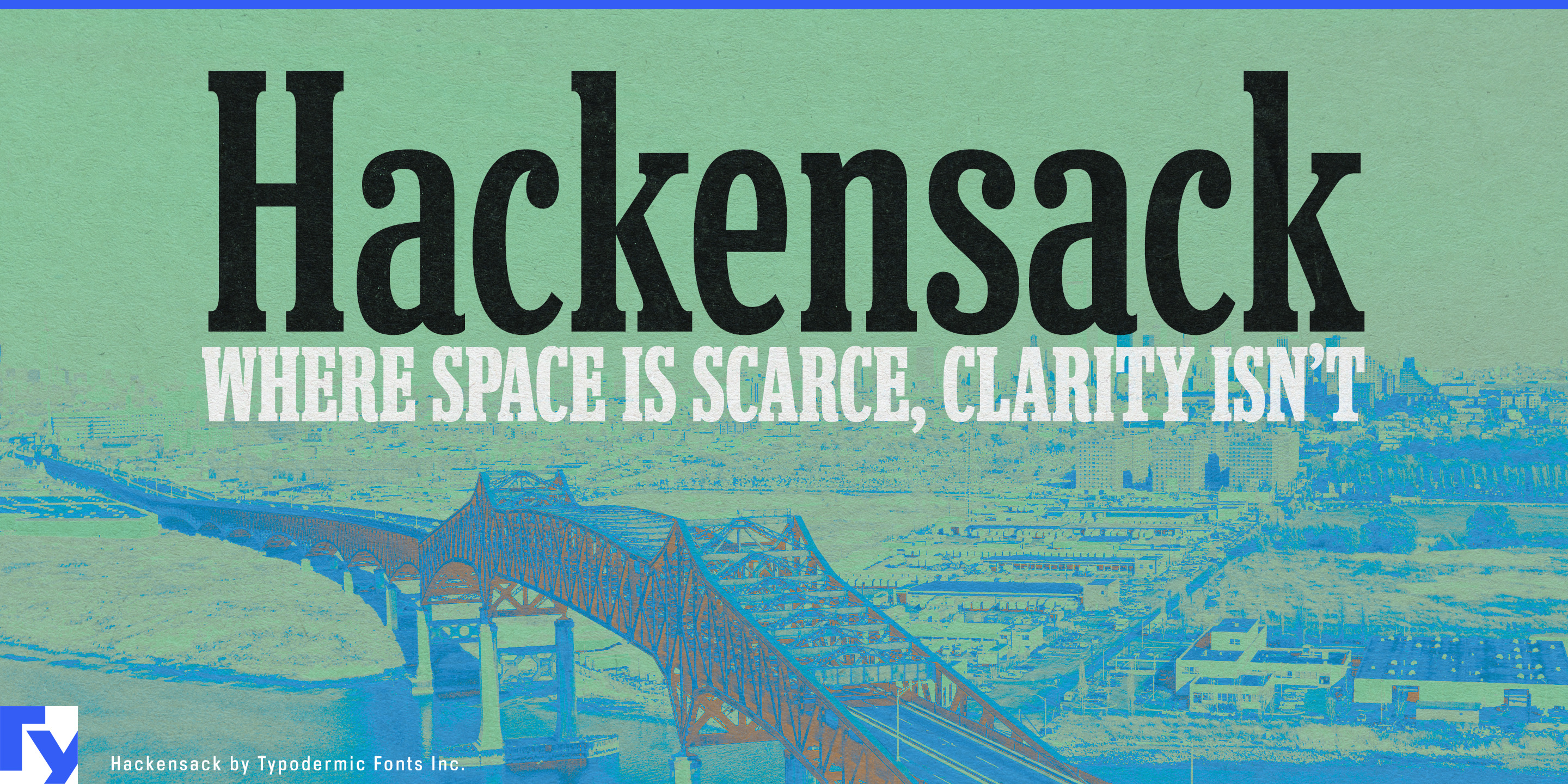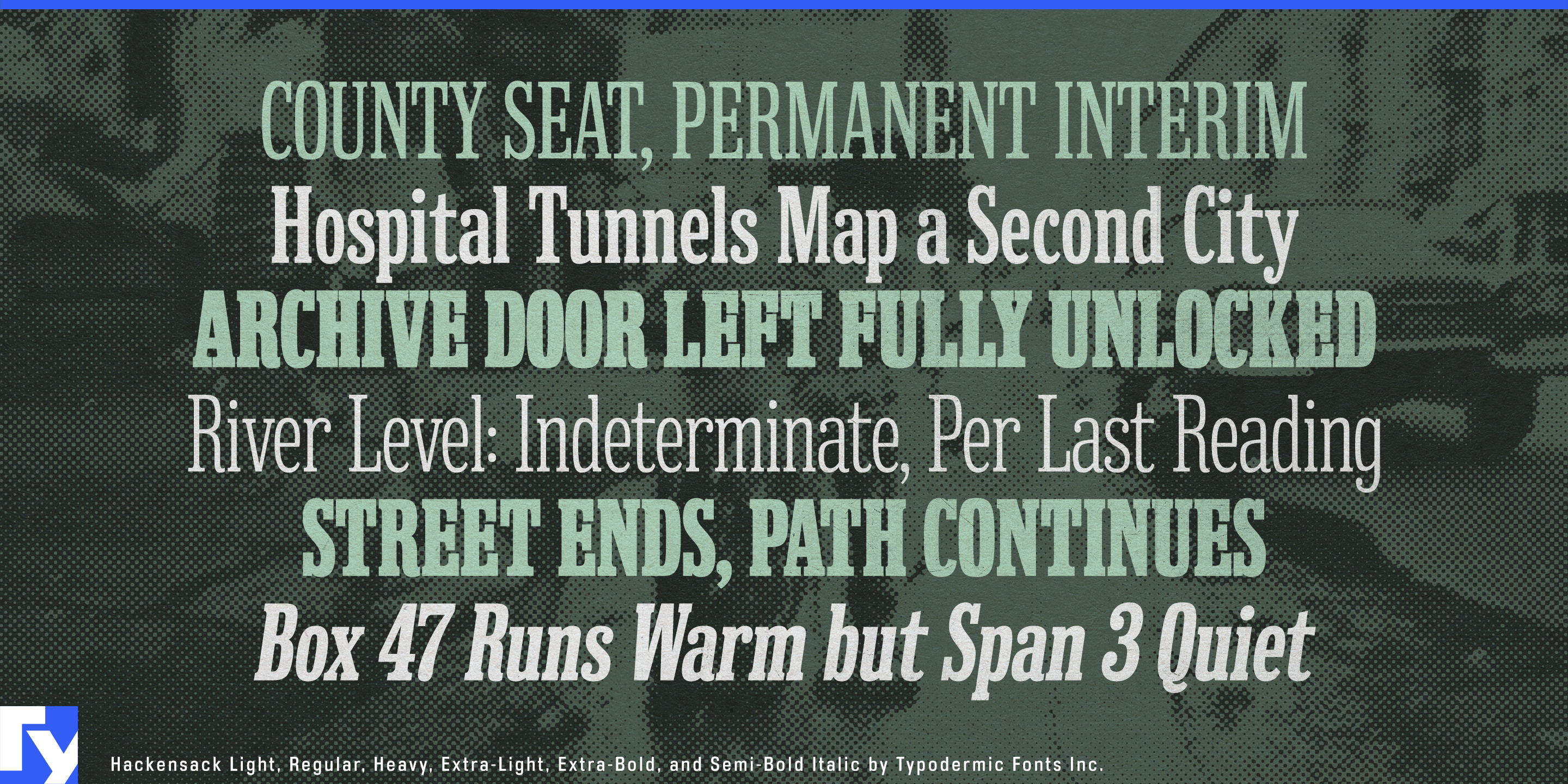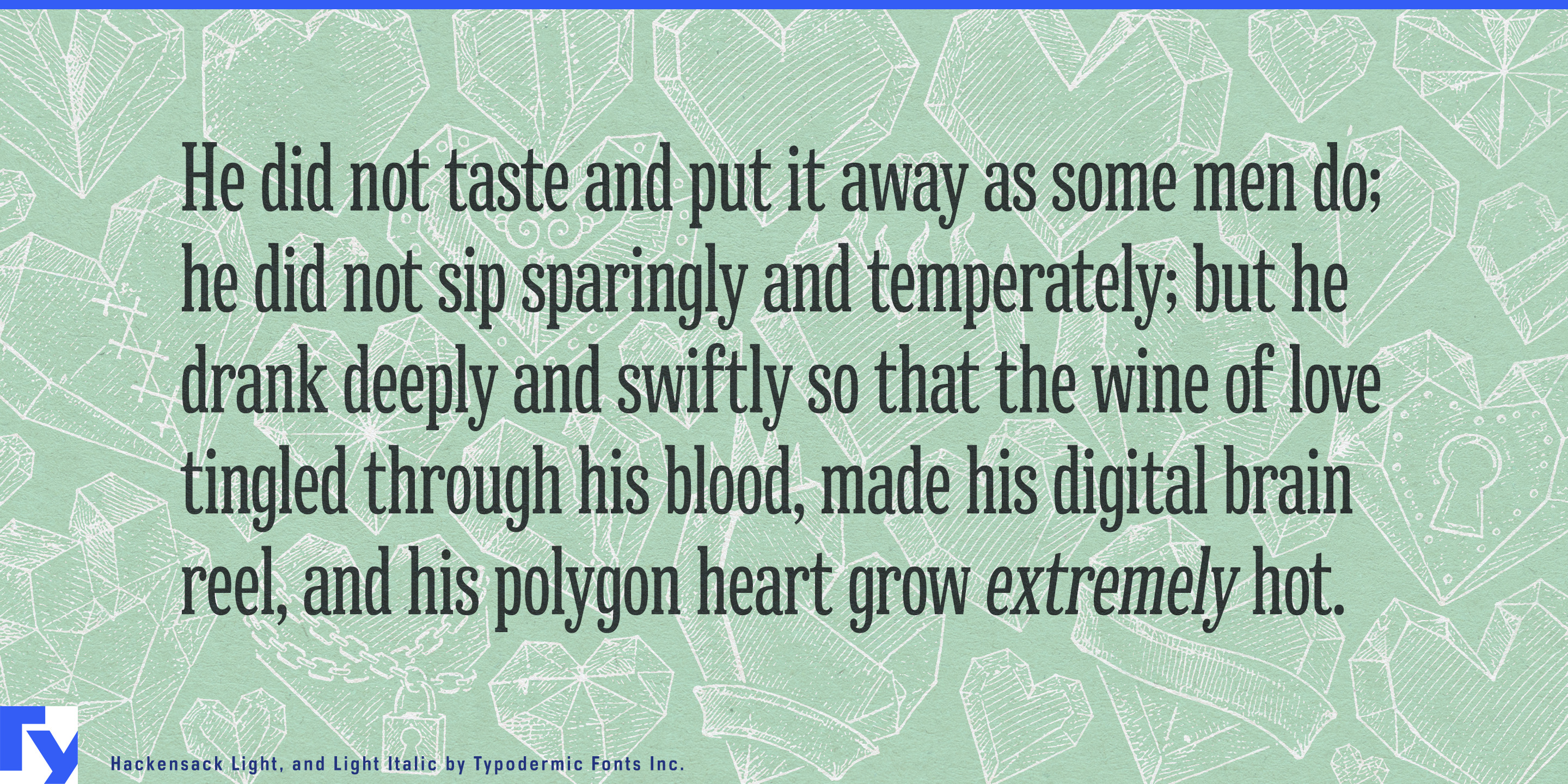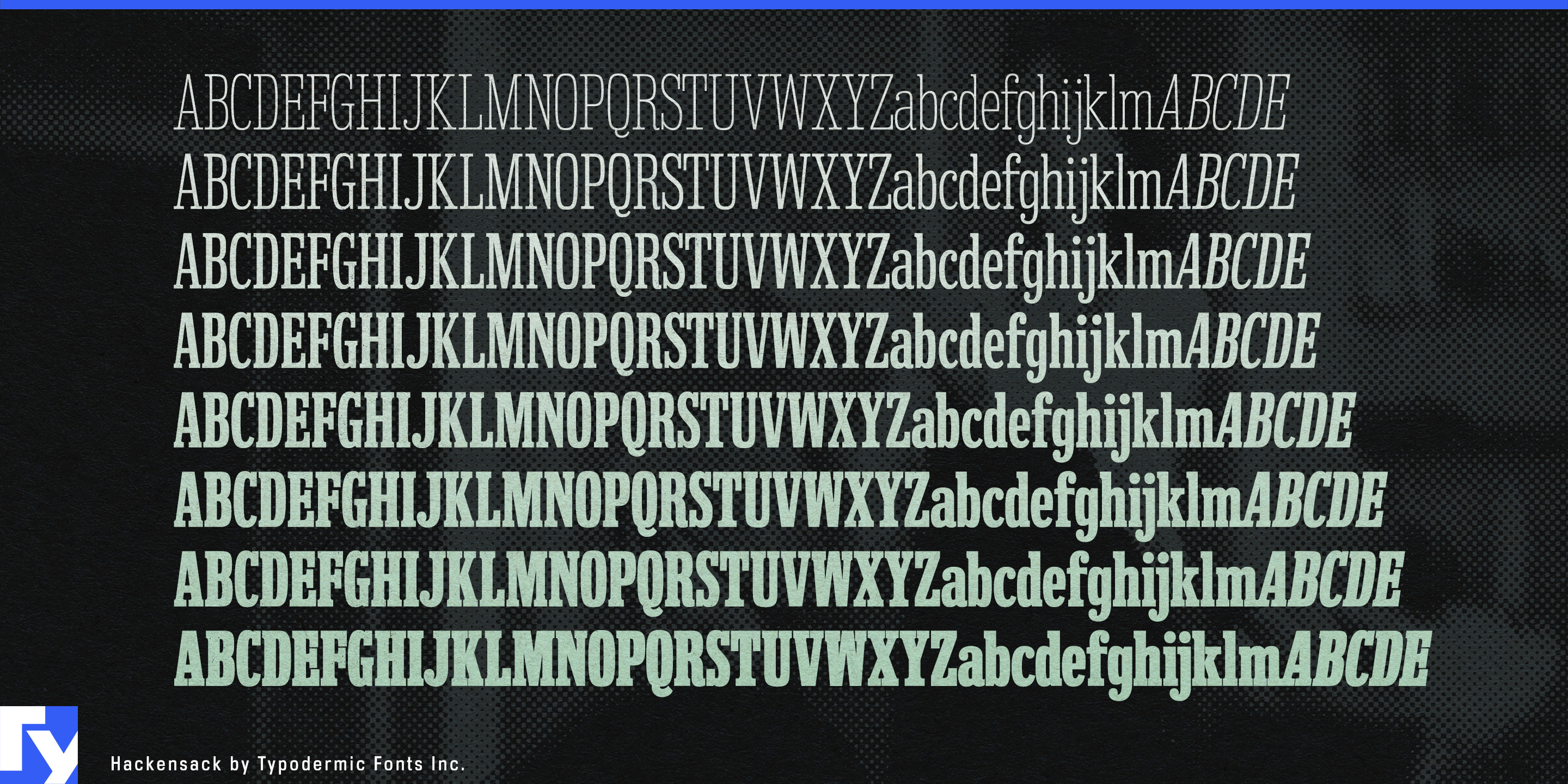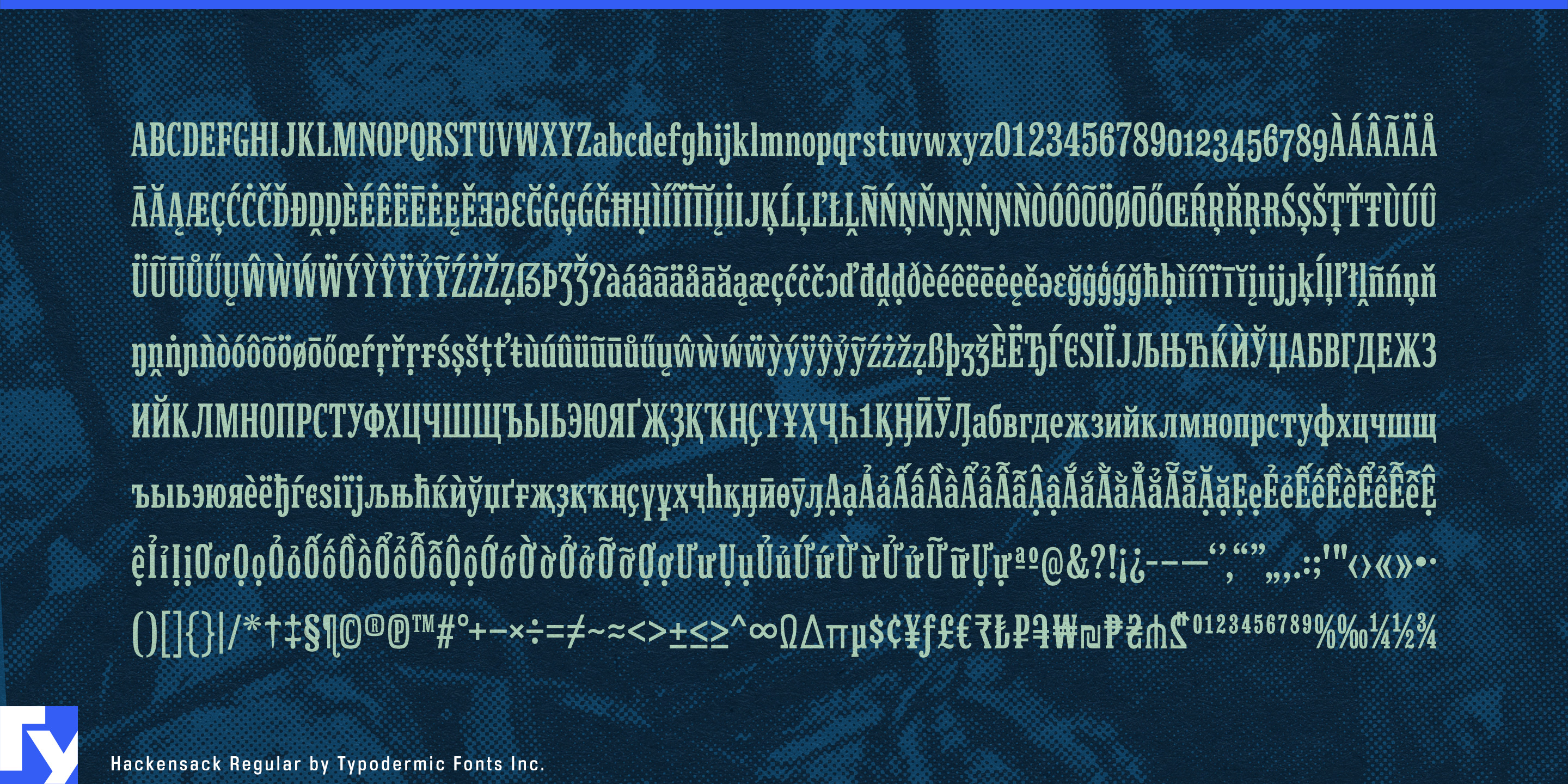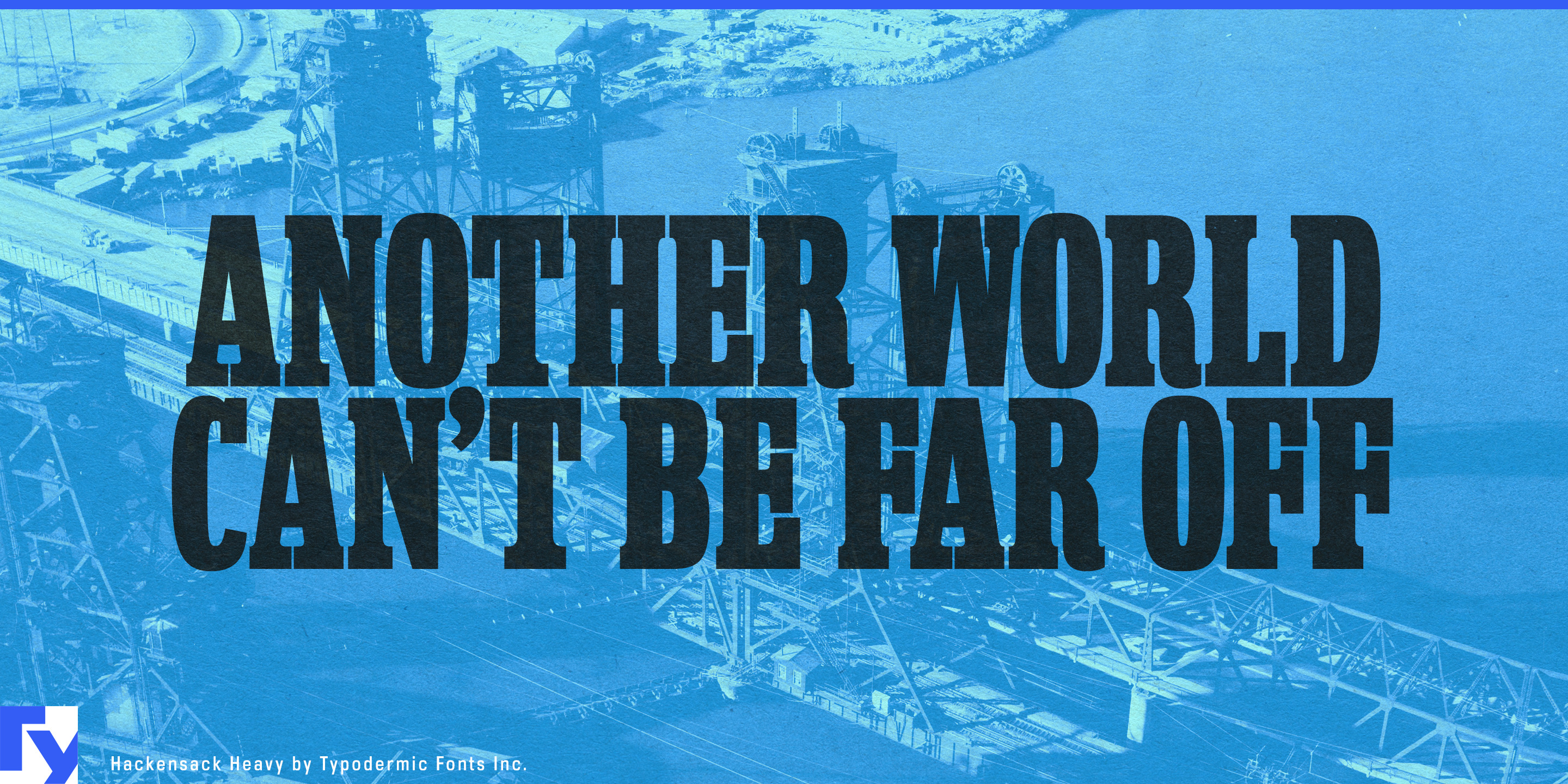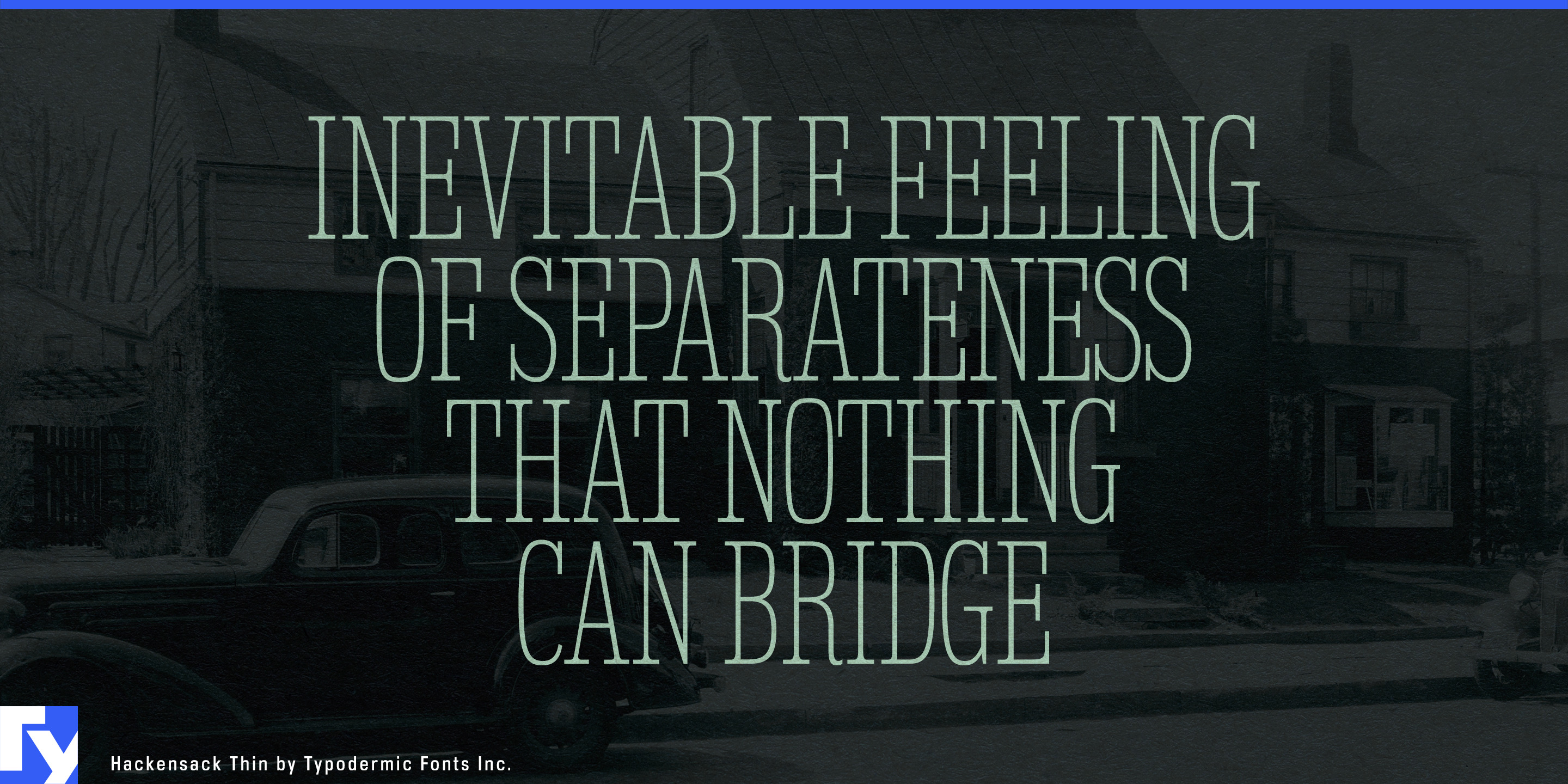
Hackensack
Places have long names, and public projects have even longer ones. Hospital networks, transit extensions, river programs and regional investigations must fit specific language into mobile cards, report columns, construction graphics and title frames designed for something shorter. A condensed sans may solve the width problem while making every institution sound like the same software portal; an overtly historical slab can turn current work into civic reenactment. Hackensack compresses the language without stripping away its editorial and institutional character.
Its narrow proportions and tight spacing make room for difficult names, while firm bracketed slabs give them enough substance to remain prominent. Rounded terminals and a single-storey g soften the texture without making it decorative. Hackensack carries a trace of Clarendon character, but it does not require distressed printing, period layouts or heritage styling.
Regional journalism gives that balance a practical role. Local reporting is crowded with neighborhood names, government agencies, hospital departments, legal terminology and public programs that cannot always be rewritten into tidy headlines. The same story may need to survive a newsletter banner, mobile card, print column, investigation page, vertical-video title and social quotation graphic. Hackensack keeps those headlines large while giving the publication a recognizable serif voice; a quieter text face can handle full articles, data and navigation.
Infrastructure and climate-adaptation projects create a similar problem. Bridge renewals, flood-resilience programs, river restoration, transit construction, water systems and grid upgrades require project identities, public dashboards, construction-hoarding graphics, environmental summaries and community presentations. Hackensack gives that public-facing layer civic weight without making it look bureaucratically neutral or historically themed.
Large institutions also accumulate language faster than layouts expand. Hospital campuses, university research centers, library programs, transit agencies and public utilities often need to accommodate long facility names, sponsored departments and multipart initiatives. Hackensack can carry campus names, program headings, report titles and public-service campaigns while a standards-oriented sans handles instructions, schedules and accessibility-critical information.
Place-based documentaries, investigative podcasts, urban-history projects and infrastructure exhibitions offer another useful setting. Episode titles, location cards, archive headings and witness quotations can feel rooted in a real city without being locked to a particular decade.
Hackensack is a compact slab serif for information that arrives with a place attached. It gives long names, public projects, regional reporting and institutional identities enough room to fit without losing their voice.